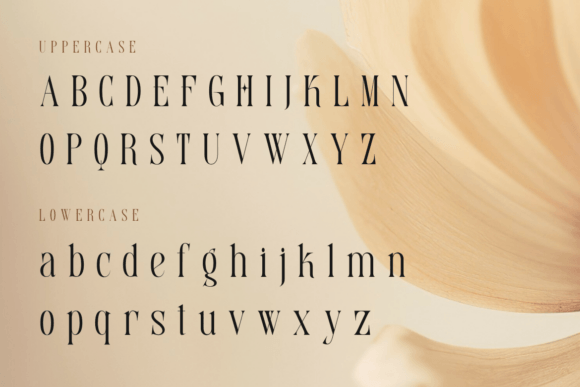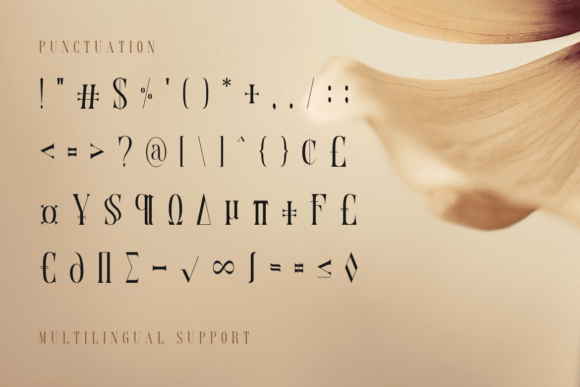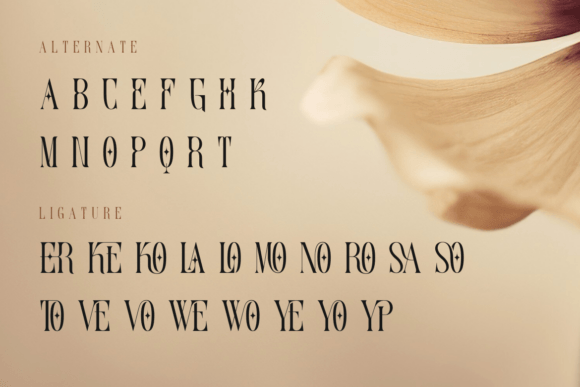
Introduction to Serino Font
Serino is a modern luxury serif font that blends elegance with simplicity.
Designed with a clean and precise style, Serino offers a luxurious and professional aesthetic This font comes with ligatures and alternates, allowing for creative flexibility across various applications.
Key Features of Serino Font